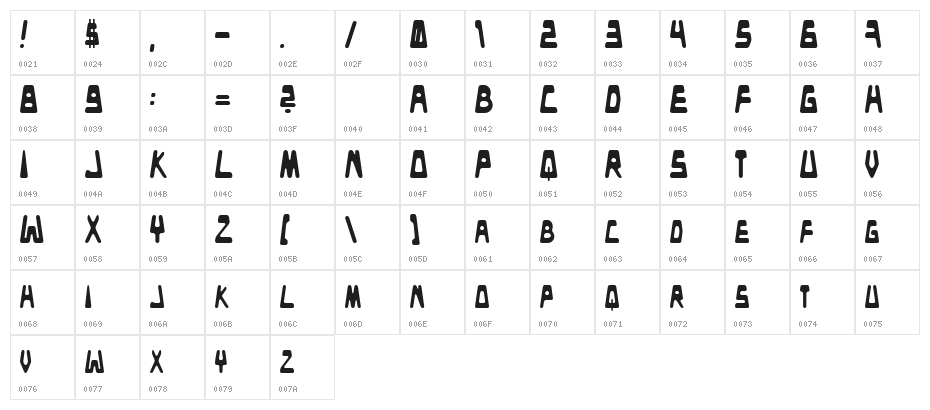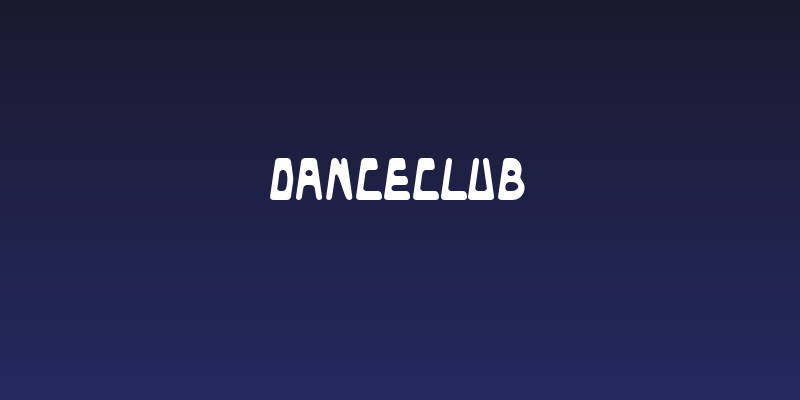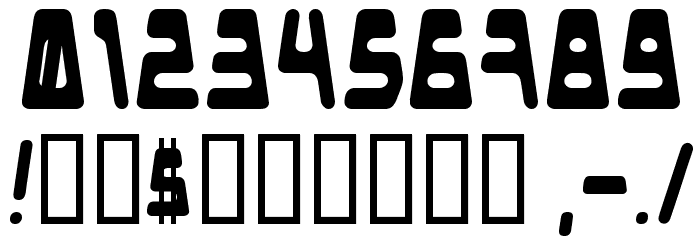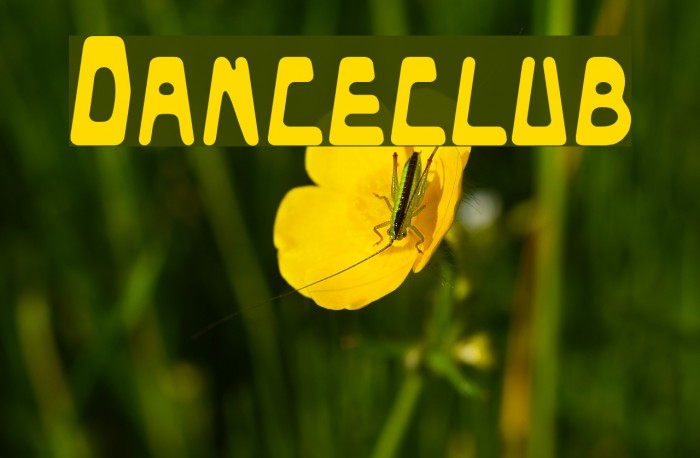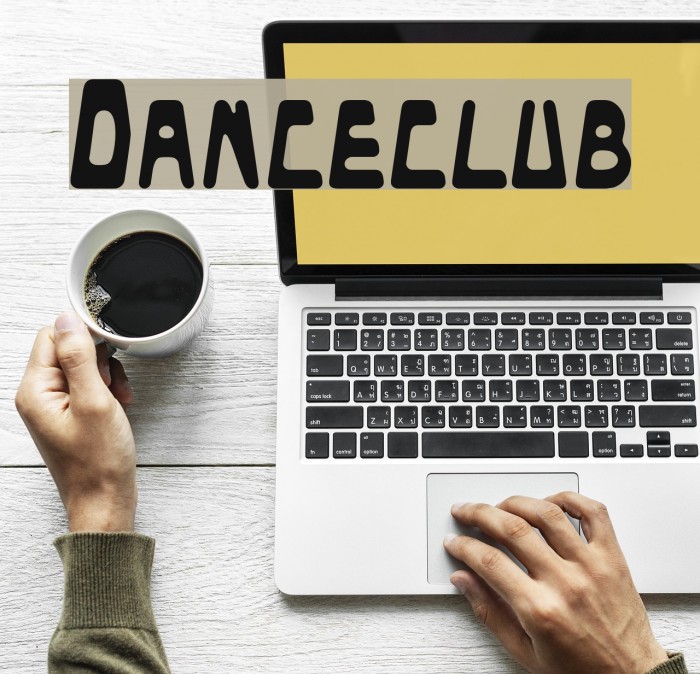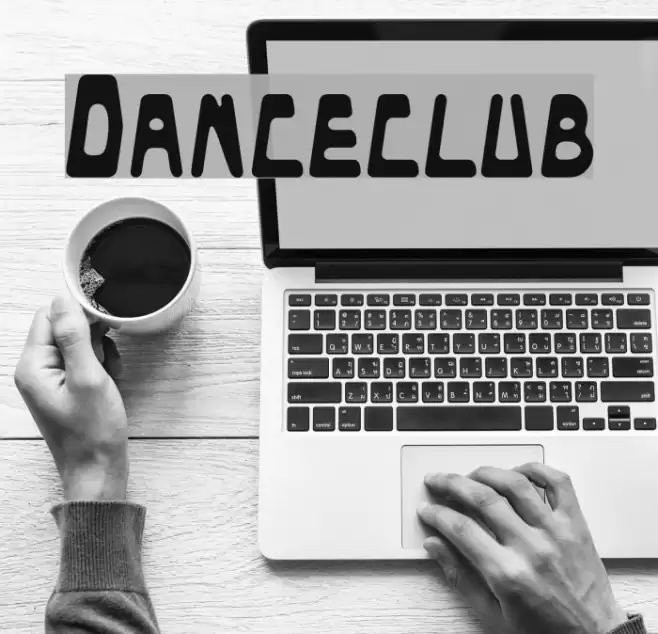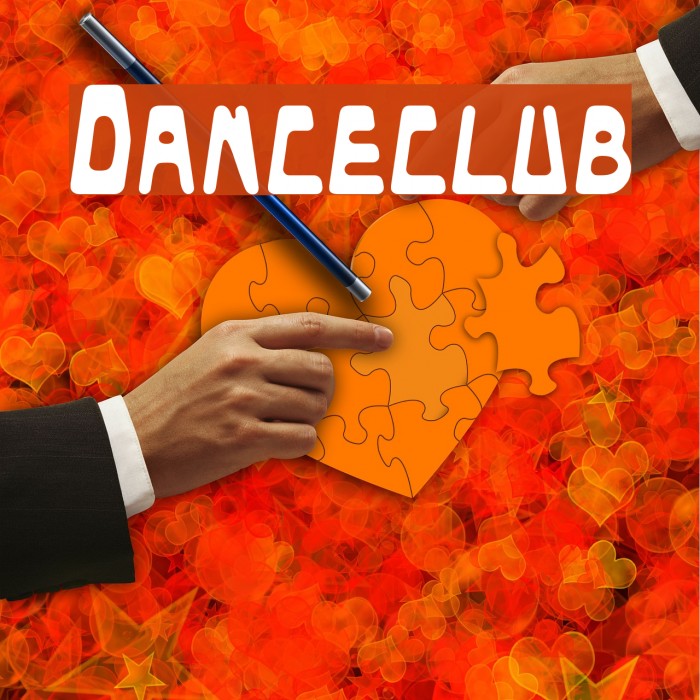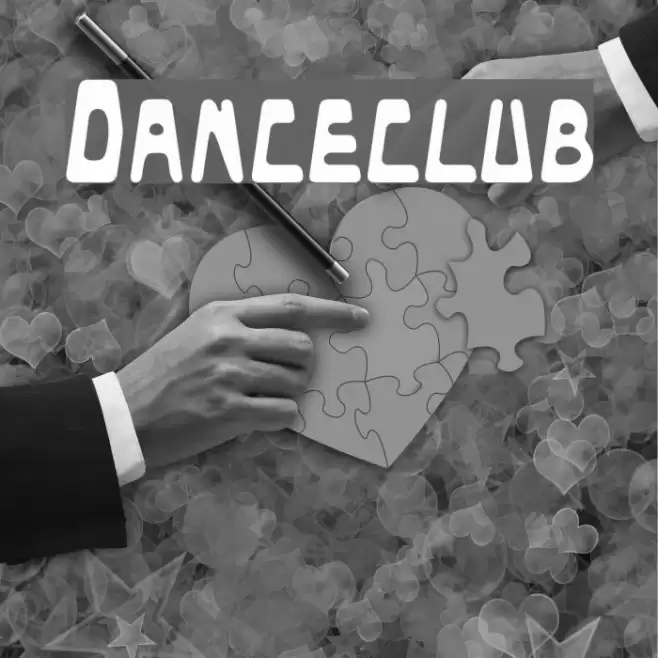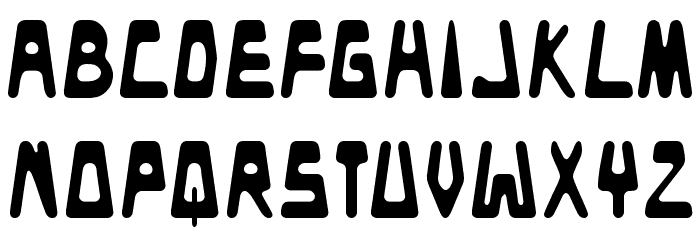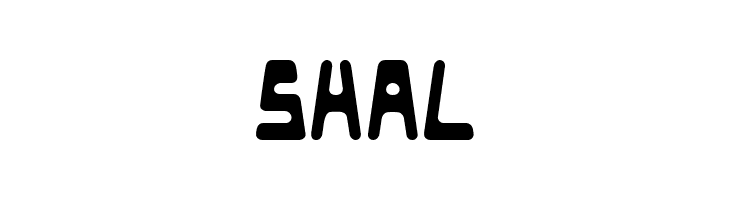
Danceclub Font
Danceclub Description
This font features a bold and playful design with a modern twist. The characters are rounded and thick, giving a sense of fun and energy. The uppercase letters are uniform in height, while the lowercase letters maintain a similar style, ensuring consistency across the typeface. The numbers are equally bold, with a slight geometric influence that adds to the overall contemporary feel. Special characters are included, maintaining the same playful aesthetic. This font is ideal for projects that require a lively and engaging visual impact.
| Proposed Projects | Perfect for event posters, music album covers, children's books, and branding for creative industries. |